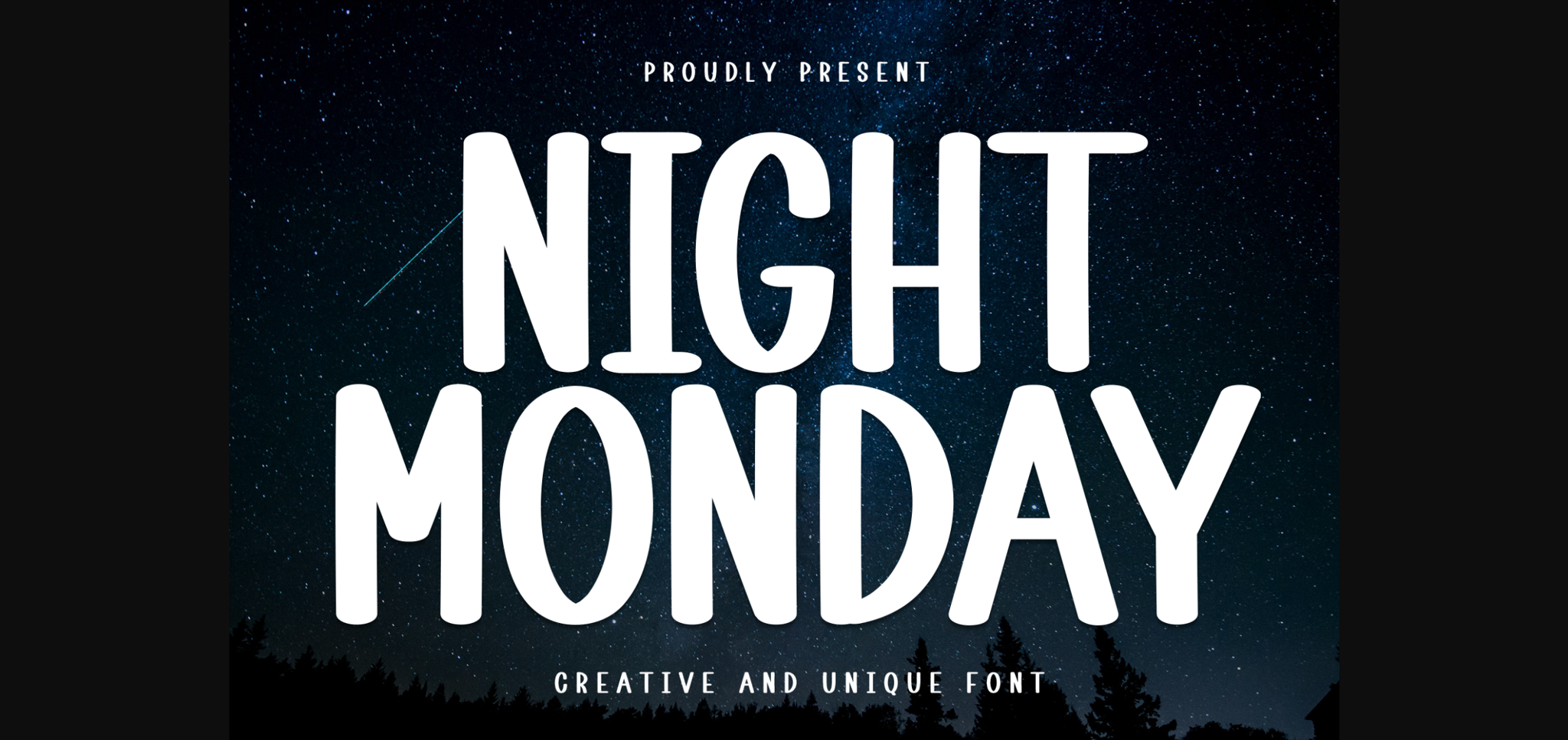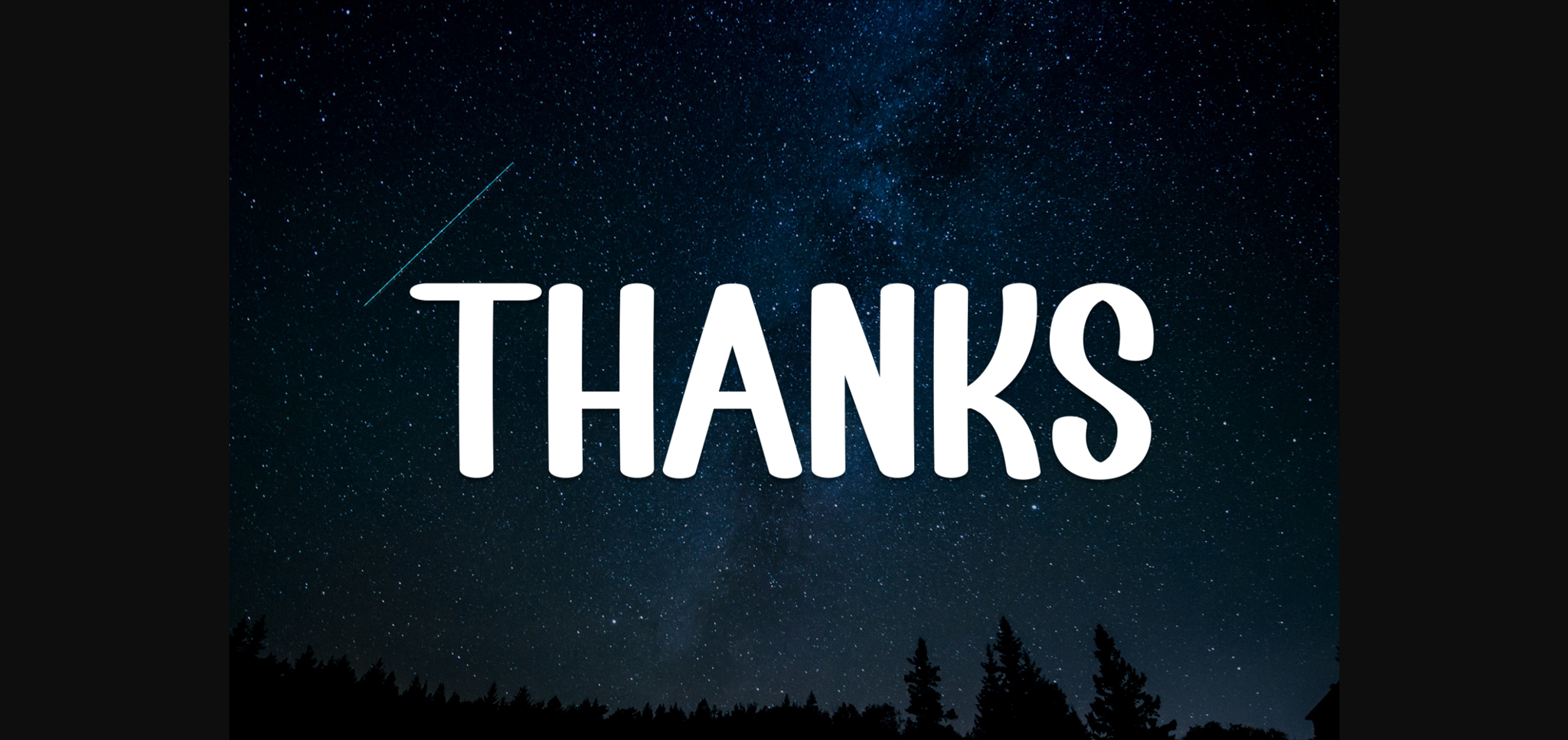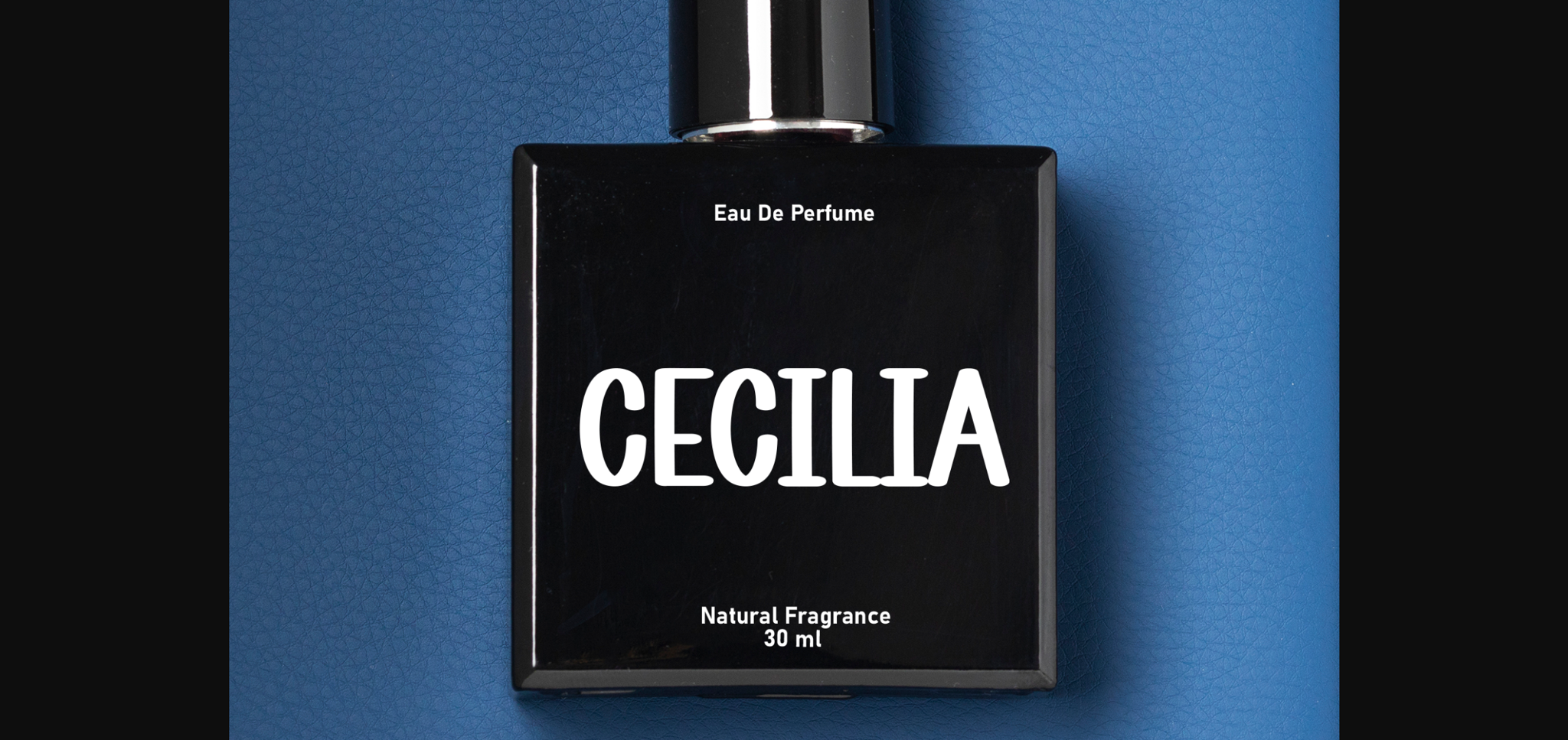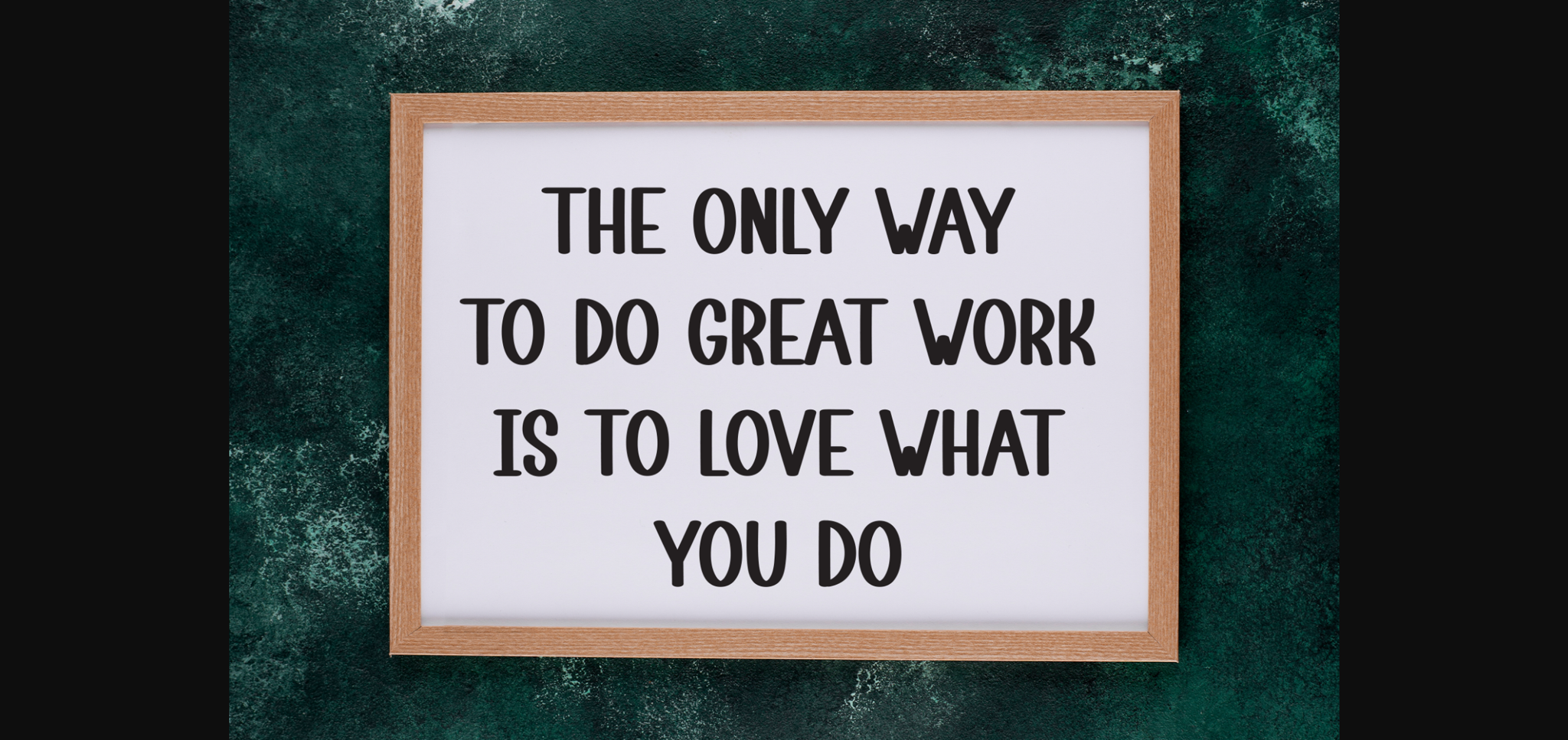
About Night Monday Font
Night Monday is a friendly sans-serif font that effortlessly combines approachability with clarity. Its balanced letterforms and subtle curves create a welcoming and versatile aesthetic. Perfect for projects requiring a warm and inviting touch, Night Monday adds a friendly, modern flair to your creative endeavors.